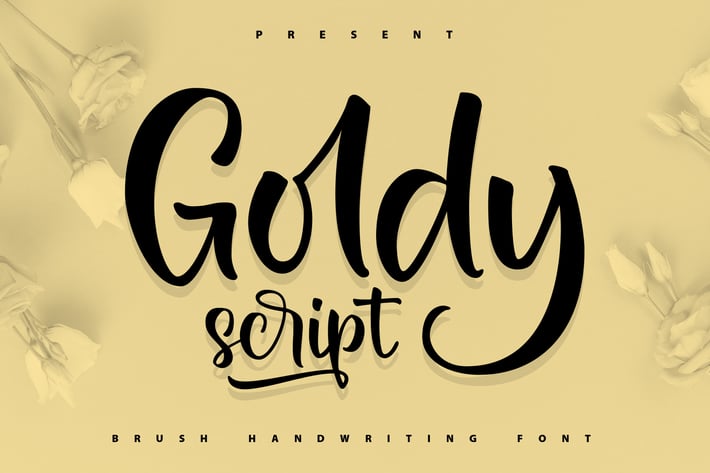
Goldy | Brush Handwriting Font
Goldy | Brush Handwriting Font with a calligraphy style, So beautiful on invitation like greeting cards, branding materials, business cards, quotes, posters, and more!